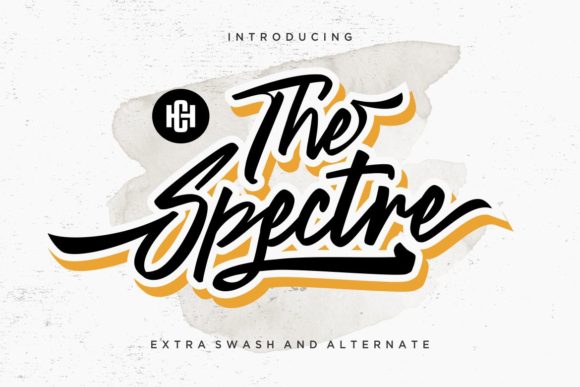
In the captivating world of creativity, where words dance onto the canvas of your imagination, discover The Spectre Font, a calligraphic masterpiece that will ignite your artistic brilliance. This enchanting font, hailing from the renowned HansCo family, is an emblem of modern grace, captivating the hearts of design enthusiasts worldwide.
Dive into the depths of The Spectre and let your creativity soar. Its flawless curves and captivating flourishes will leave you breathless, inspiring you to craft visual masterpieces that resonate with audiences of all kinds. Whether you're a seasoned designer or just starting your artistic journey, this font is sure to elevate your creations, adding a touch of magic that will leave an everlasting impression.
Unleash your imagination and be transported to a world of typographic possibilities. The Spectre's versatility is like an artist's palette, brimming with endless opportunities. From logos and branding to captivating social media posts and unforgettable invitations, let your creative juices flow as you make your mark in the digital landscape.
But that's not all! The Spectre is also the perfect companion for those breathtaking wedding invitations, save-the-dates, and oh-so-special handwritten letters. Its elegant flow will add a dash of charm to your heartfelt words, making them leap off the page and touch the hearts of your loved ones.
As you lose yourself in the splendor of The Spectre, don't be surprised if you find yourself marveling at the details. The subtle variations in line thickness, the delicate serifs, and the perfectly spaced glyphs all come together to create a piece of art that will leave you in awe.
Experience the transformative power of The Spectre Font today and watch your creative visions become a reality. With each swipe of your pen or movement of your mouse, a new world of design possibilities unfolds, taking you to the pinnacle of artistic expression.